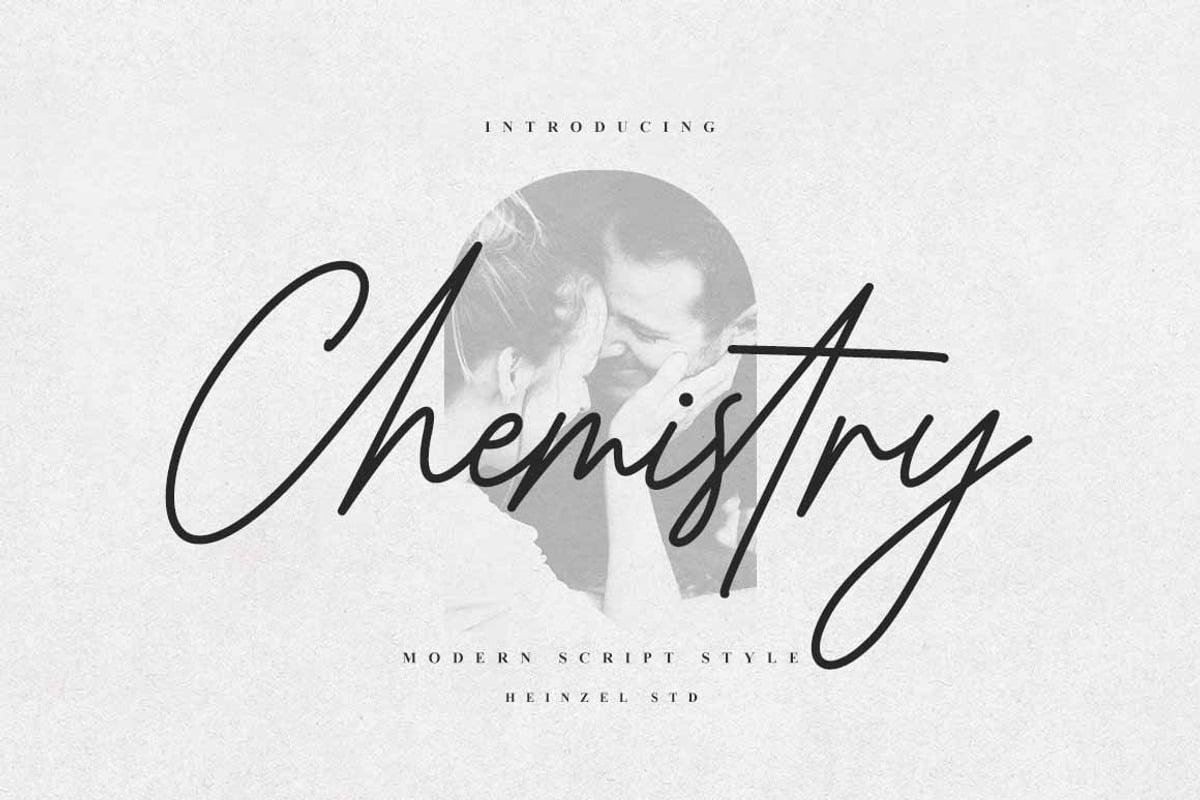
Chemistry Signature Font
A timeless signature typeface that brings handcrafted elegance to every design it touches.
Chemistry is a stunning signature-style script font defined by its fluid, elegant strokes and distinctly personal feel. Whether you're designing for a wedding, building a brand, or crafting something that simply needs a beautiful handwritten touch, Chemistry delivers that perfect balance of sophistication and warmth.
It looks breathtaking on:
- Wedding invitations and stationery
- Thank you cards and greeting cards
- Logos and business cards
- Quotes and social media graphics
- Any project calling for an authentic handwritten aesthetic
Chemistry Features:
- Uppercase, Lowercase, Numerals, and Punctuation
- Ligatures and Alternates
Fall in love with its incredibly distinct and timeless style — use Chemistry to create spectacular designs that leave a lasting impression.